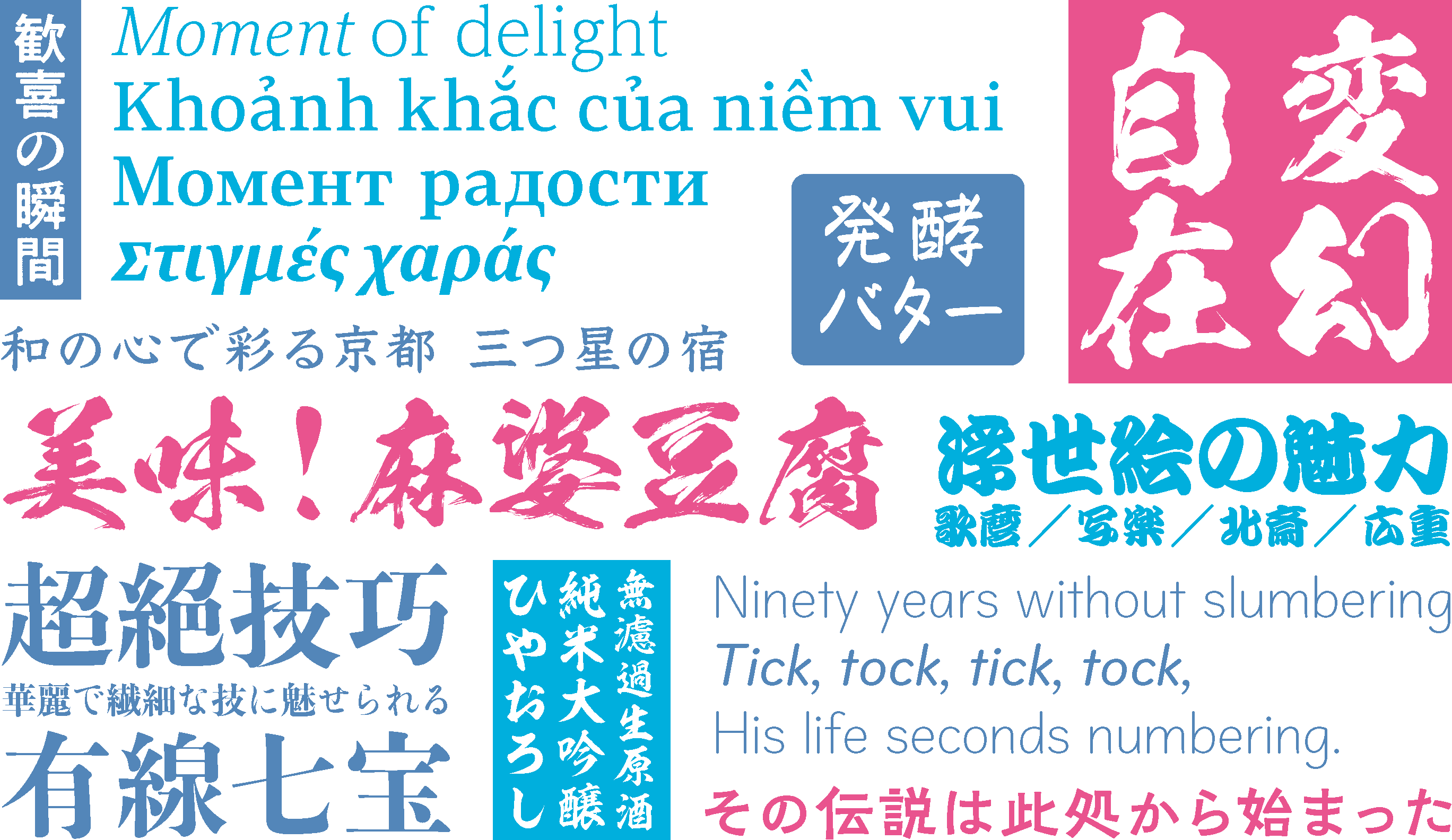
Newly adding 132 fonts to TypeSquare including fonts from Jiyukobo and Showa Shotai.
The web font service TypeSquare will release new fonts on December 17th 2020. In addition to the new released fonts, in total of 132 fonts will be available on TypeSquare including fonts from Jiyukobo and Showa Shotai.
New additional typefaces are:
A heart-warming Japanese typeface with a nuance of letterpress; a friendly typeface reminiscent of the handwriting of felt-tip pen; a serif Latin typeface which covers Cyrillic, Greek and Vietnamese characters designed as a Latin counterpart of the UD Reimin series. The lineup expands the range of expressions of multilingual design as well as Japanese. In addition, an AP version (equipped with pair kerning) which enhances the use of our famous typefaces will be added.
46 typefaces from Jiyukobo, such as “Yu Mincho” and “Yu Gothic” have been added to enrich the library of standard typefaces. These typefaces perform well in typesetting of book. Lastly but not least, 5 typefaces from Showa Shotai, such as “Showa Kaisho” and “Touryu” will be added. The strokes of these typefaces have the dynamic blurriness of handwritten lines. Typefaces designed under the concept of “eye and mind-catching letters” have the letterforms to convey a strong image to the readers.
Release typefaces:
Kuretake Meiseki
Penpal
Shuei Antique+*
Shuei Nijimi Antique*
Lutes UD PE* Light / Light Italic / Regular / Italic / Medium / Medium Italic / Bold / Bold Italic / ExtraBold / ExtraBold Italic / Heavy / Heavy Italic
<AP version(Japanese kerning supported)>
UD ShinGo: EL / L / R / M / DB / B / H / U
UDShinGo: NT EL / L / R / M / DB / B / H / U
Reimin: L / R / M / B / EB / H / EH / U
Reimin Y10: L / R / M / B / EB / H / EH / U
Reimin Y20: R / M / B / EB / H / EH / U
Reimin Y30: M / B / EB / H / EH / U
Reimin Y40: B / EB / H / EH / U
ShinGo: EL / L / R / M / DB / B / H / U
ShinMaruGo: L / R / M / DB / B / H / U
<Jiyukobo Fonts>
Yu Mincho*: L / R / M / D / B / E
Yu Midashi Mincho*
Yu Chikumidashi Mincho*: Alt
Yu Gothic*: L / R / M / D / B / E / H
Yu Kyokasyo New*: M / B
Yu Kyokasho New (horizontal setting)*: M / B
Yu Kanteiryu*
Yu Mincho 5 Kana*: L / R / M / D
Yu Mincho 36 PoKana*: L / R / M / D / B / E
Yu Chiku Shogo Kana*
Yu Gothic Shogo Kana*: L / R / M / D / B / E / H
JKHandwriting*: Light / Regular / Medium / Medium Italic / Bold / Heavy / RL Light / RL TW Light
<Showa Shotai Fonts>
Touryu*
Kokuryu*
Ginryu*
Kagero*
Showa Shotai*